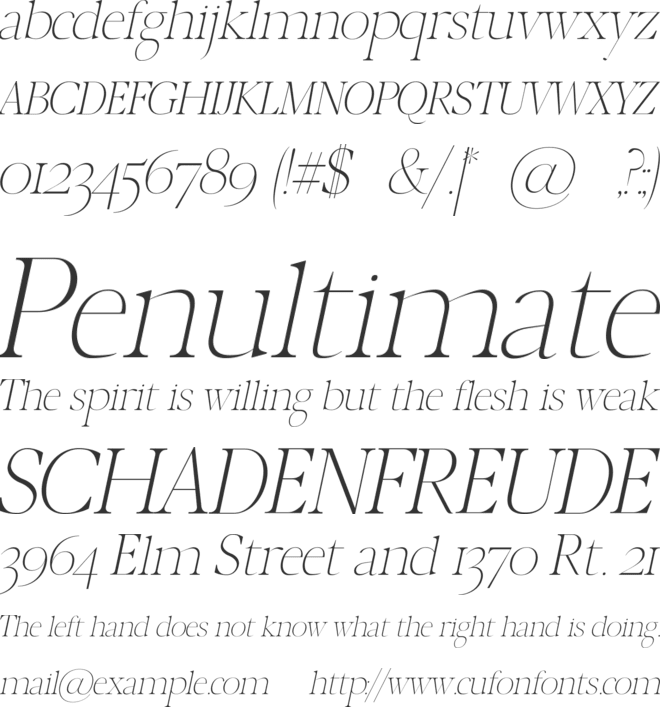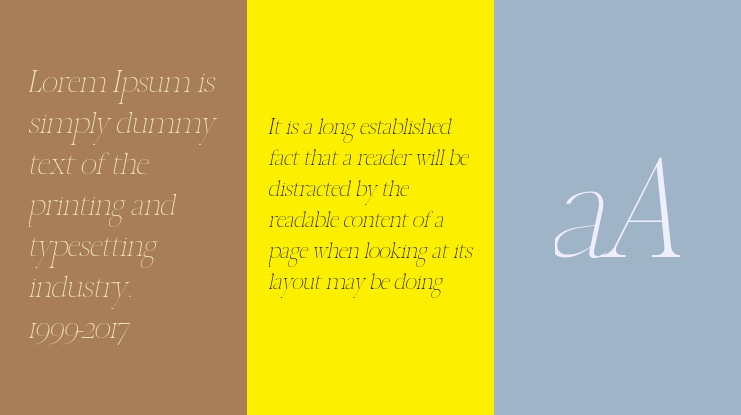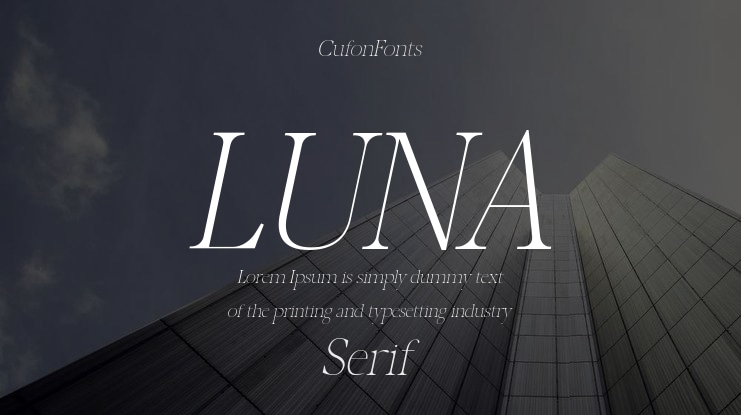
LUNA Font Family
Luna is a minimalist serif with soft elegance and multilingual support—perfect for editorial layouts, romantic branding, and poetic design.